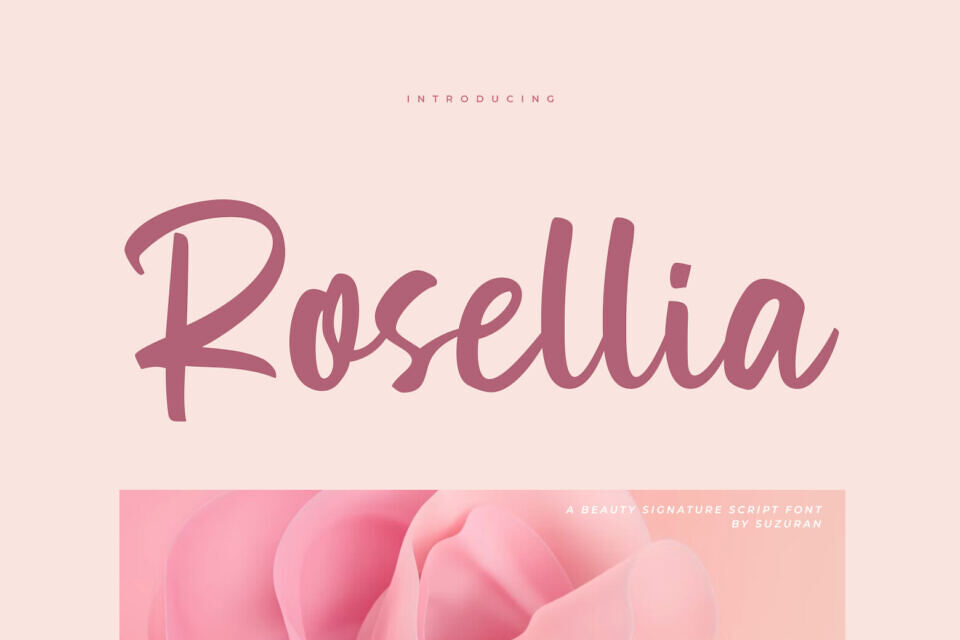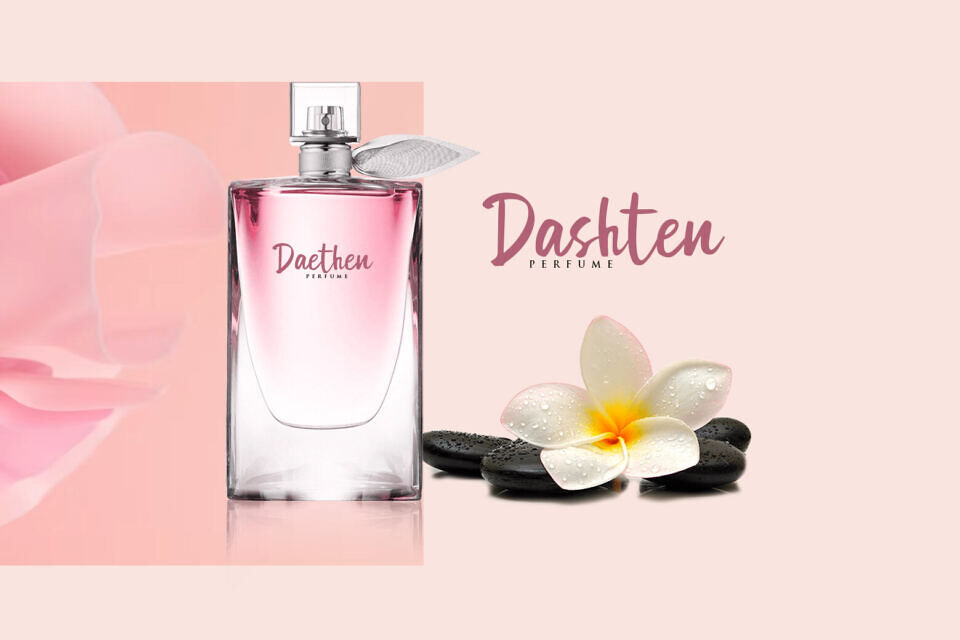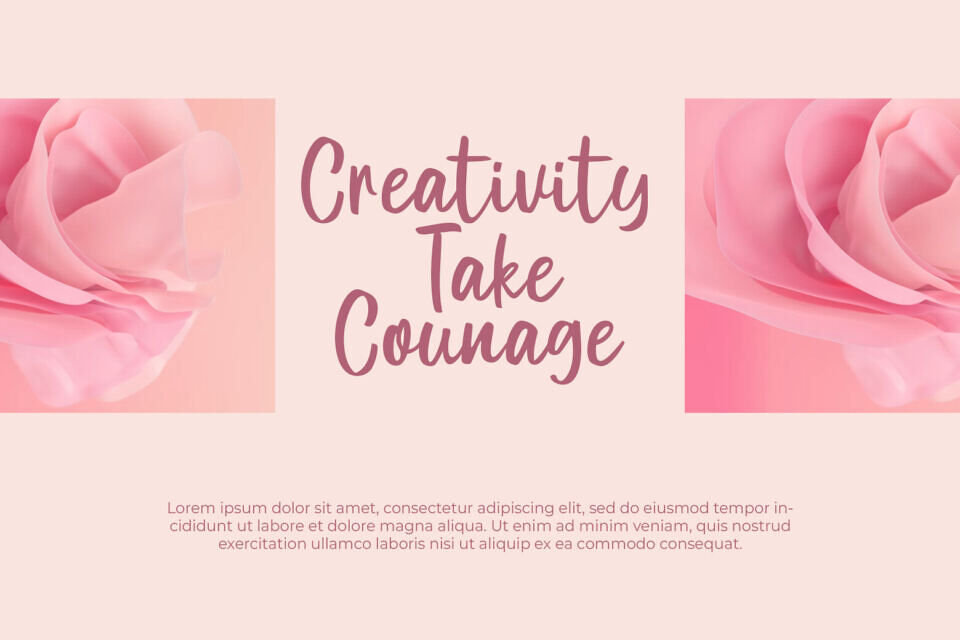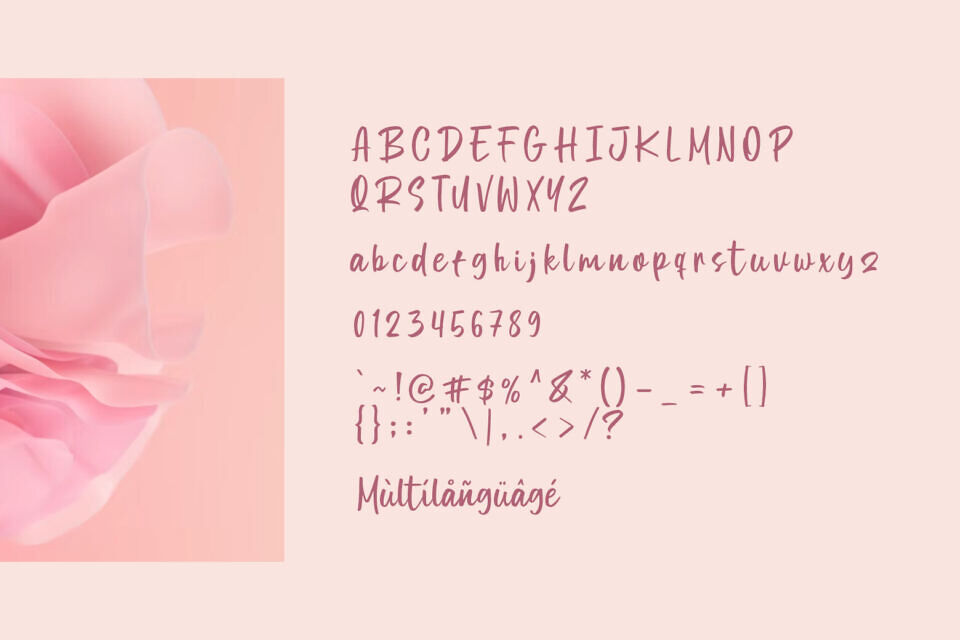
Rosellia Font
Rosellia is a modern script font with an elegant touch and natural flow, designed to bring a premium feel to every design. Its smooth and stylish letterforms remain highly legible, making it perfect for logos, branding, product packaging, wedding invitations, social media content, and other commercial projects.
More than just typography, Rosellia is a visual element that elevates your design into something timeless and sophisticated. Turn simple ideas into masterpieces with Rosellia – the script font that makes every detail shine.